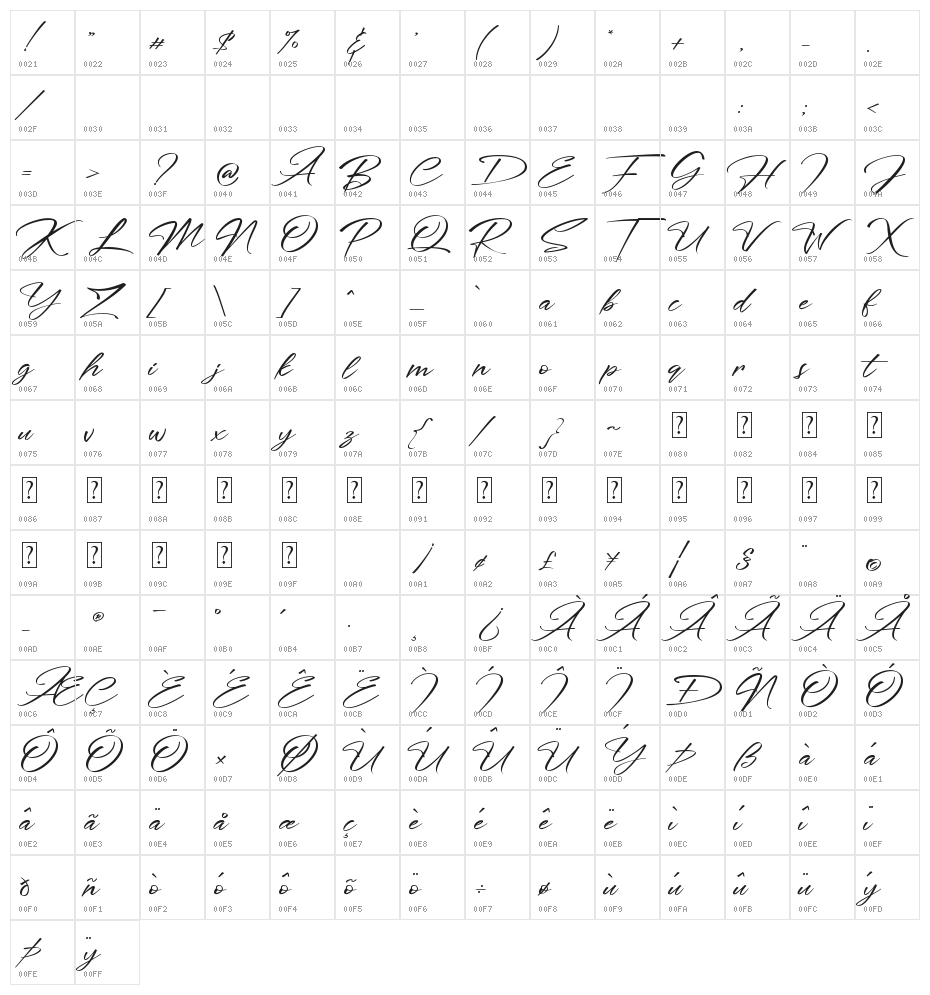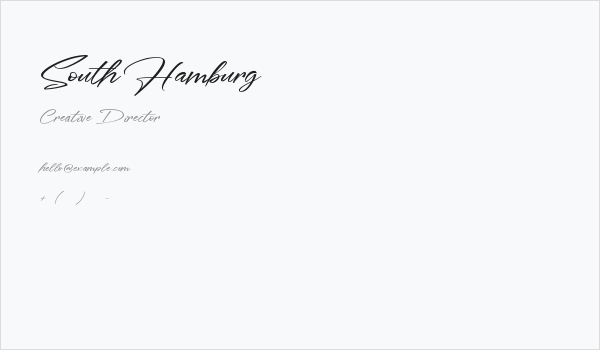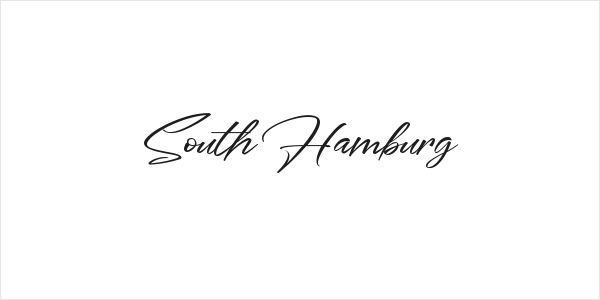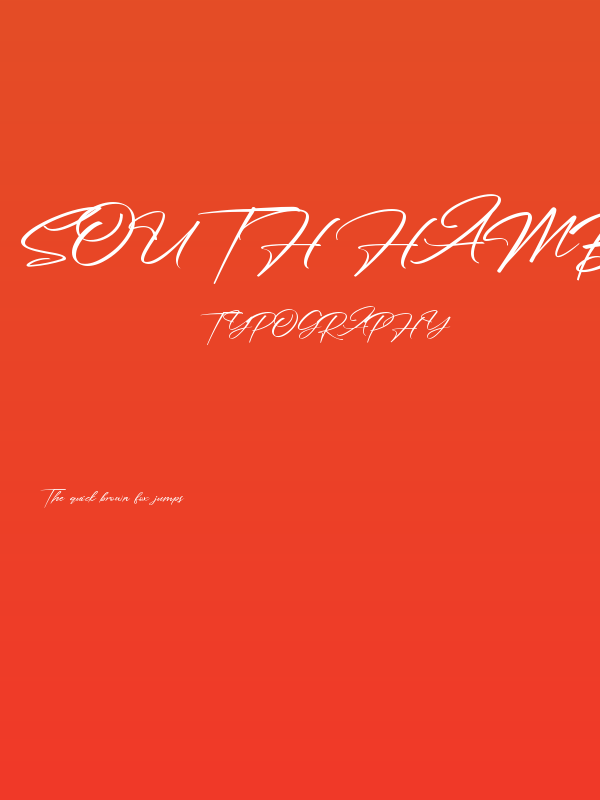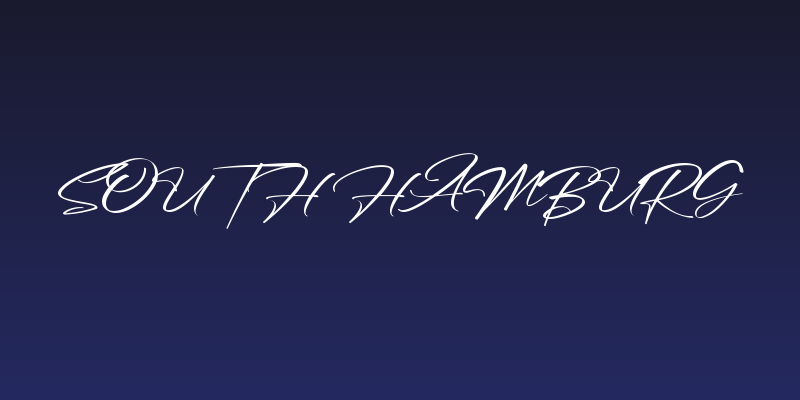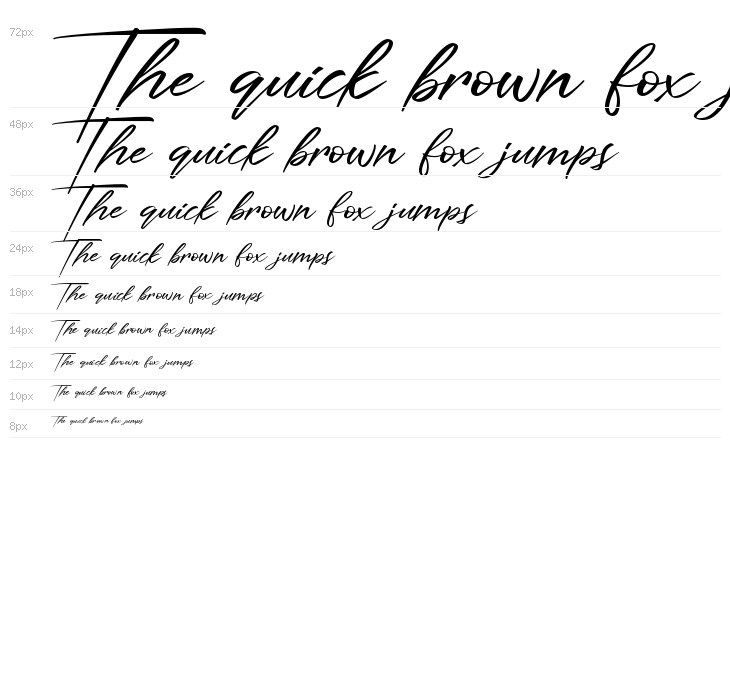
South Hamburg Font
South Hamburg Description
This font exhibits a sophisticated and elegant script style, characterized by its fluid, cursive strokes and graceful curves. The uppercase letters are particularly ornate, with sweeping lines that convey a sense of movement and flair. The lowercase letters maintain a consistent flow, enhancing readability while preserving the decorative nature of the script. The numerals and special characters are designed to match the overall aesthetic, featuring similar curves and flourishes. This font is ideal for projects that require a touch of elegance and sophistication, such as wedding invitations, formal event programs, or luxury branding materials.
| Proposed Projects | Wedding invitations, formal event programs, luxury branding materials. |